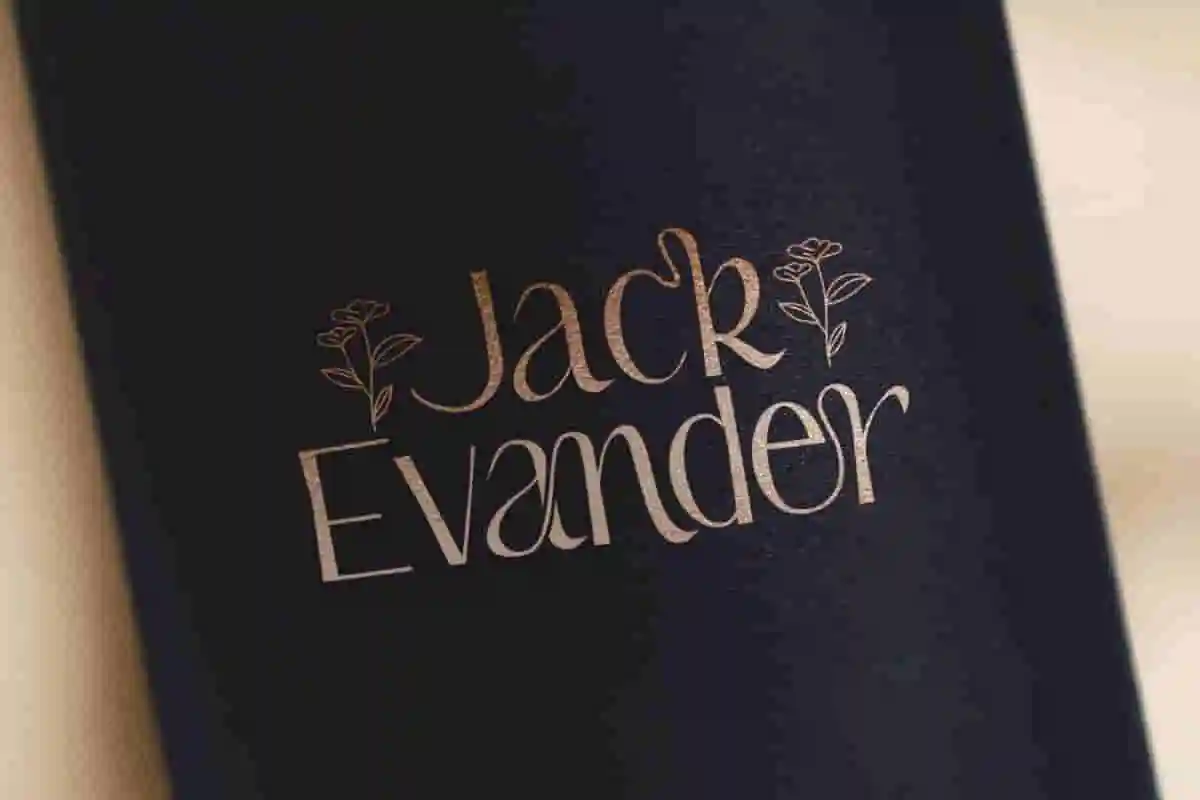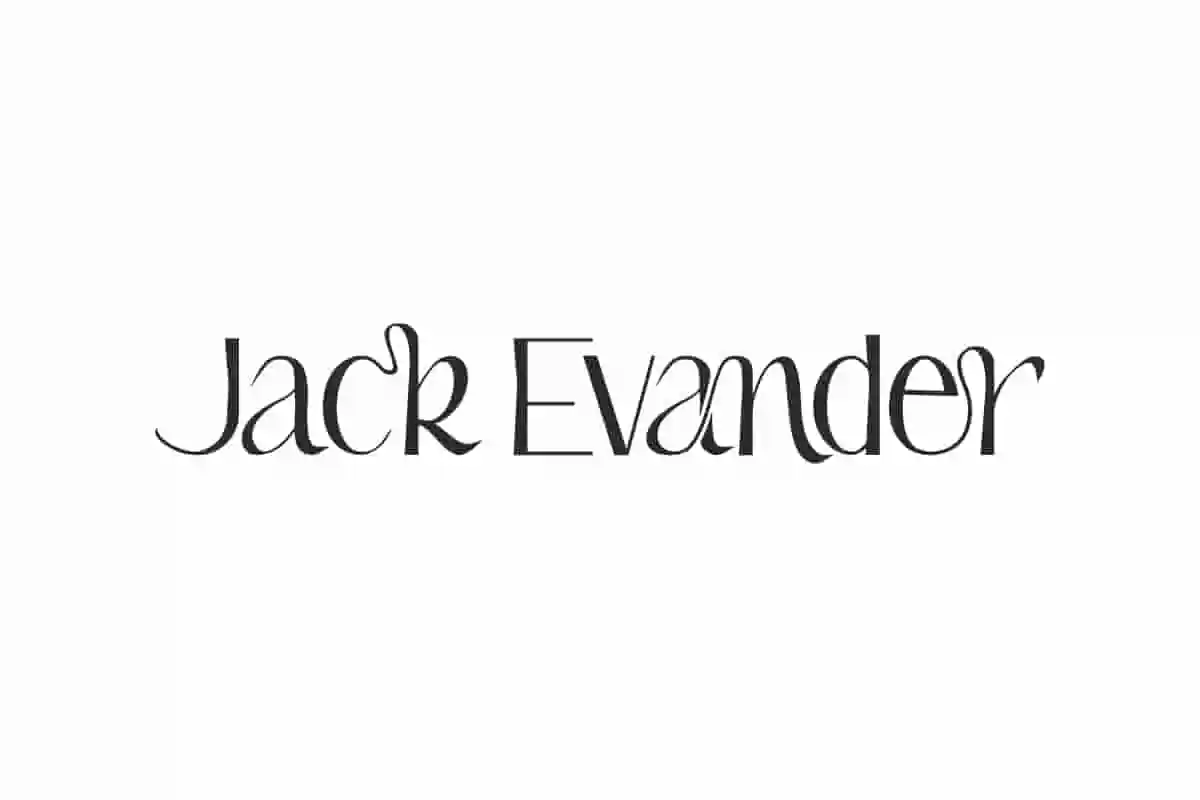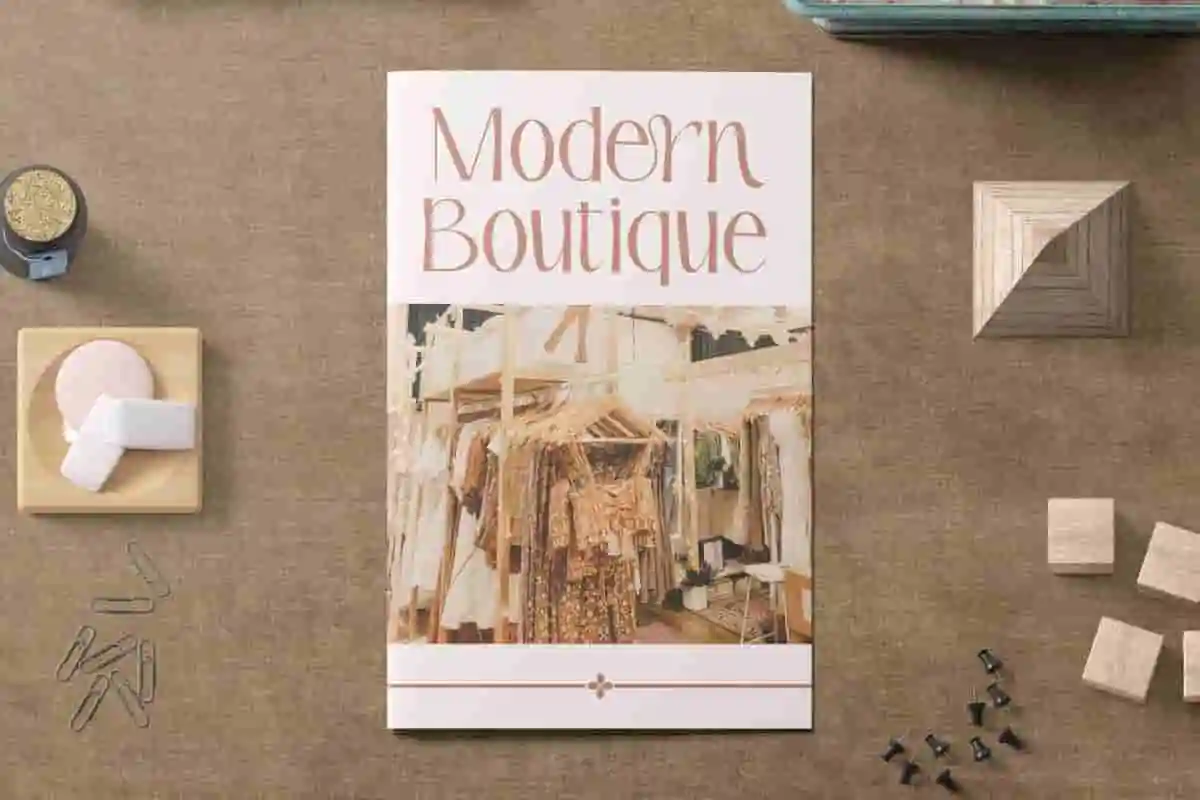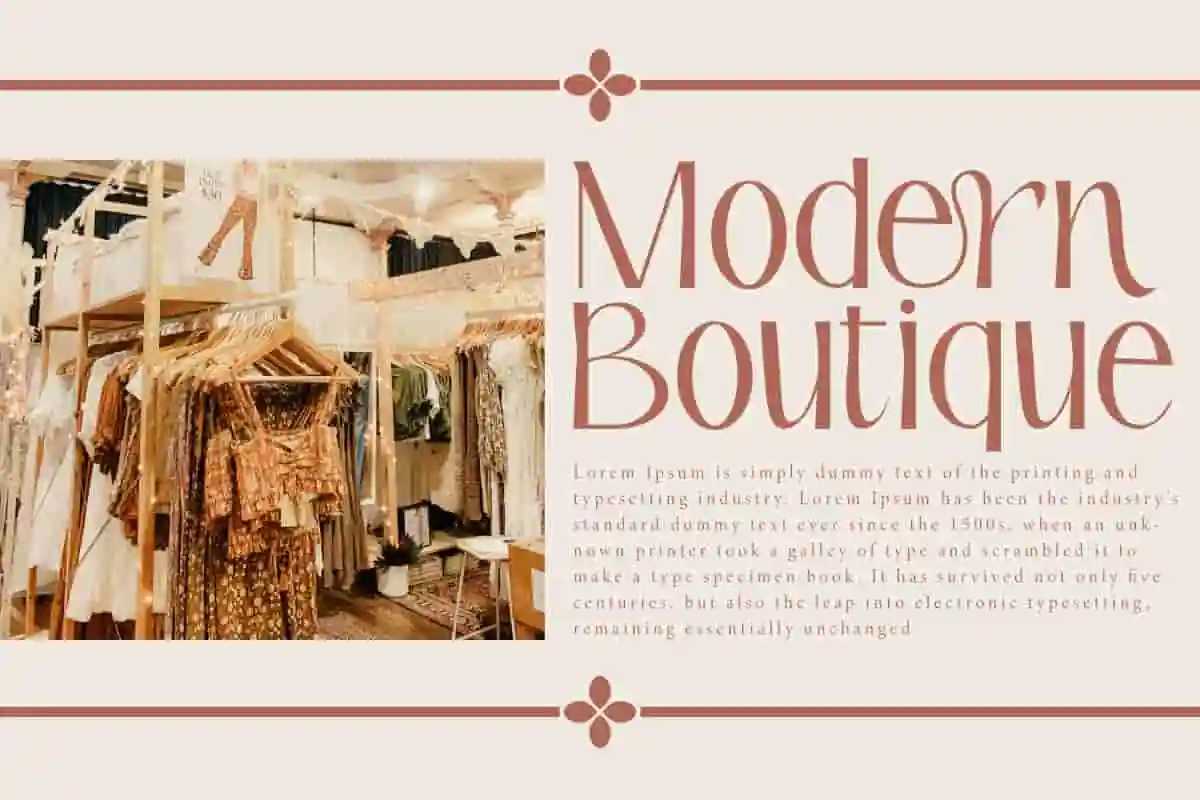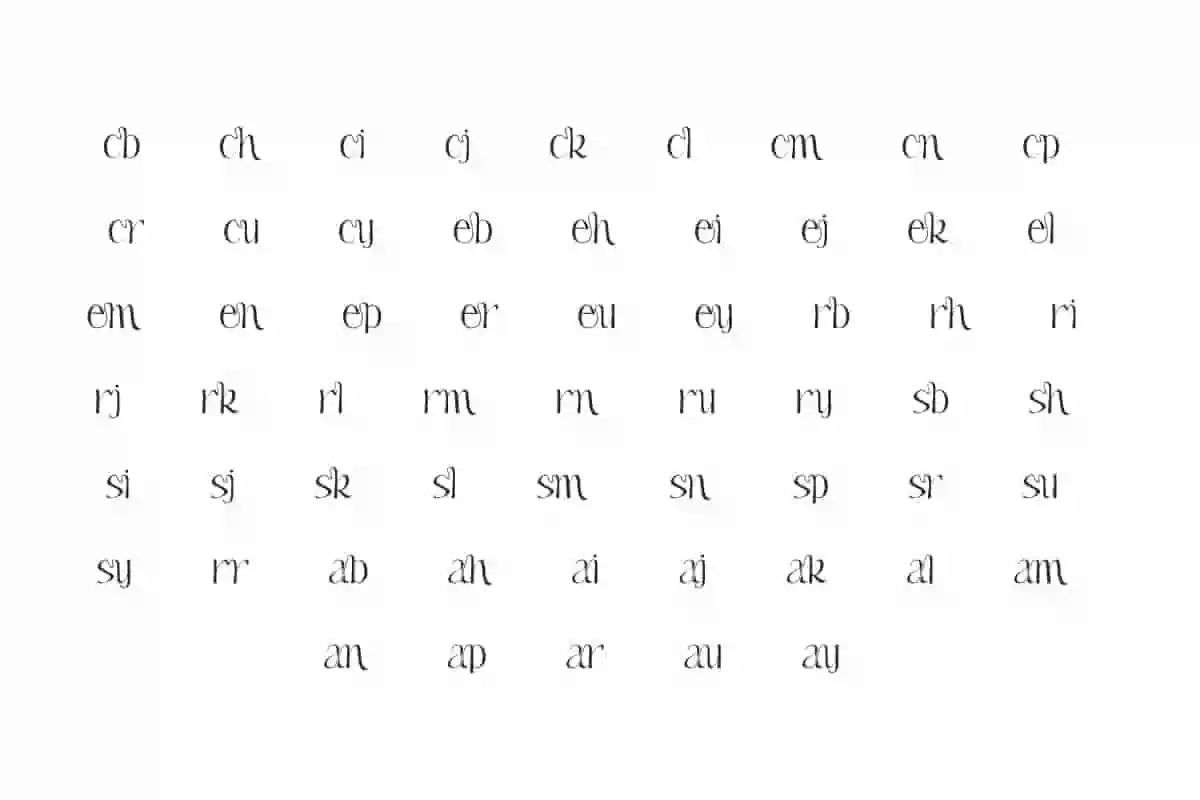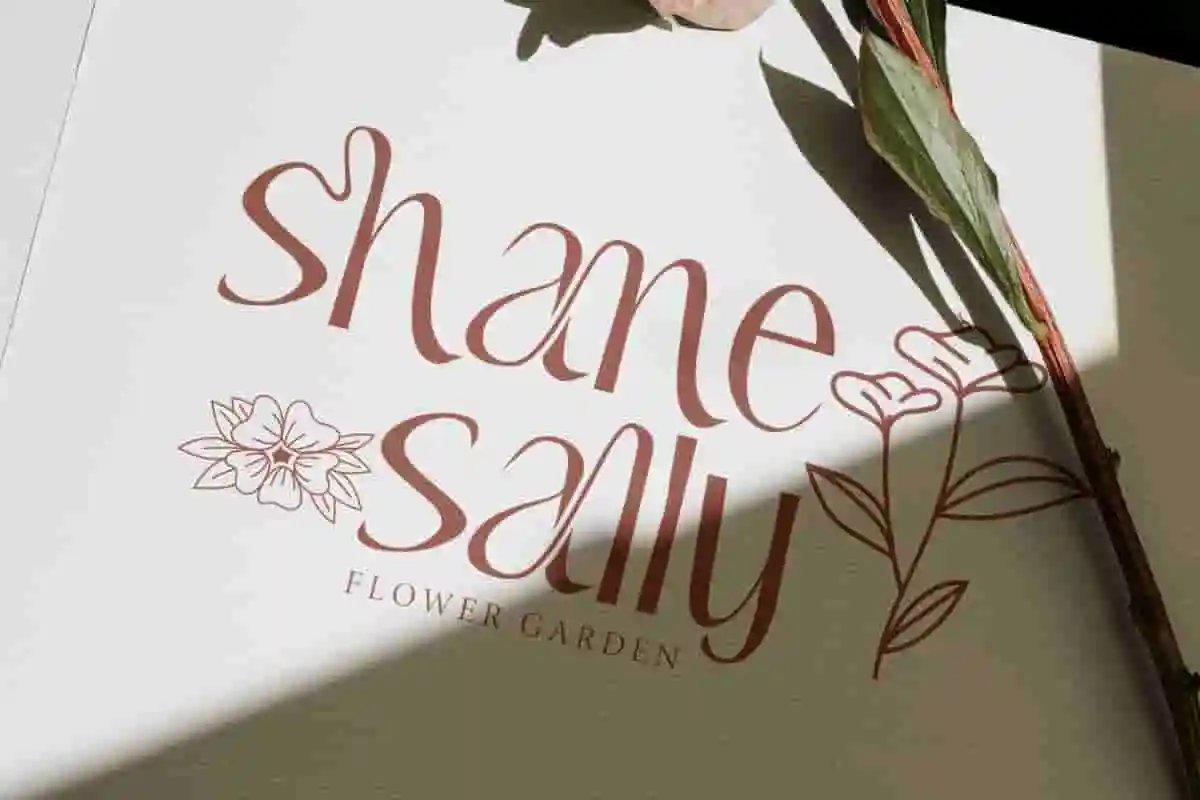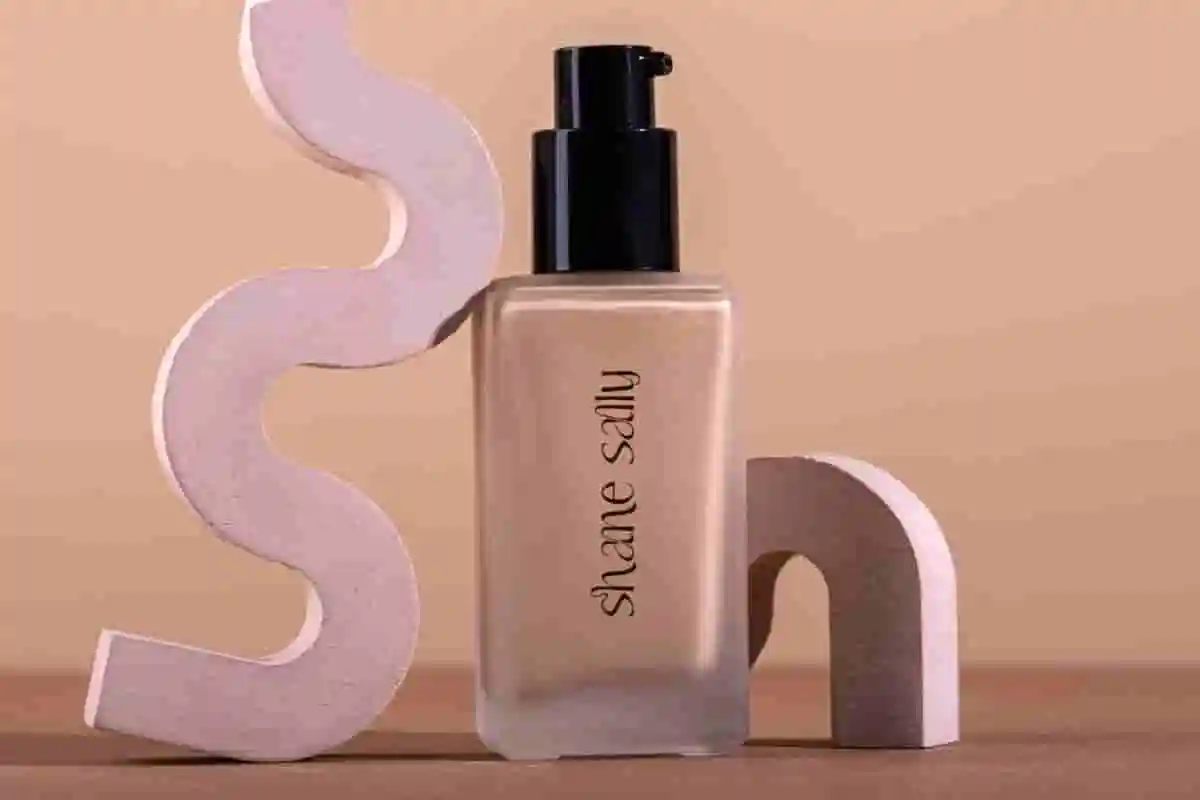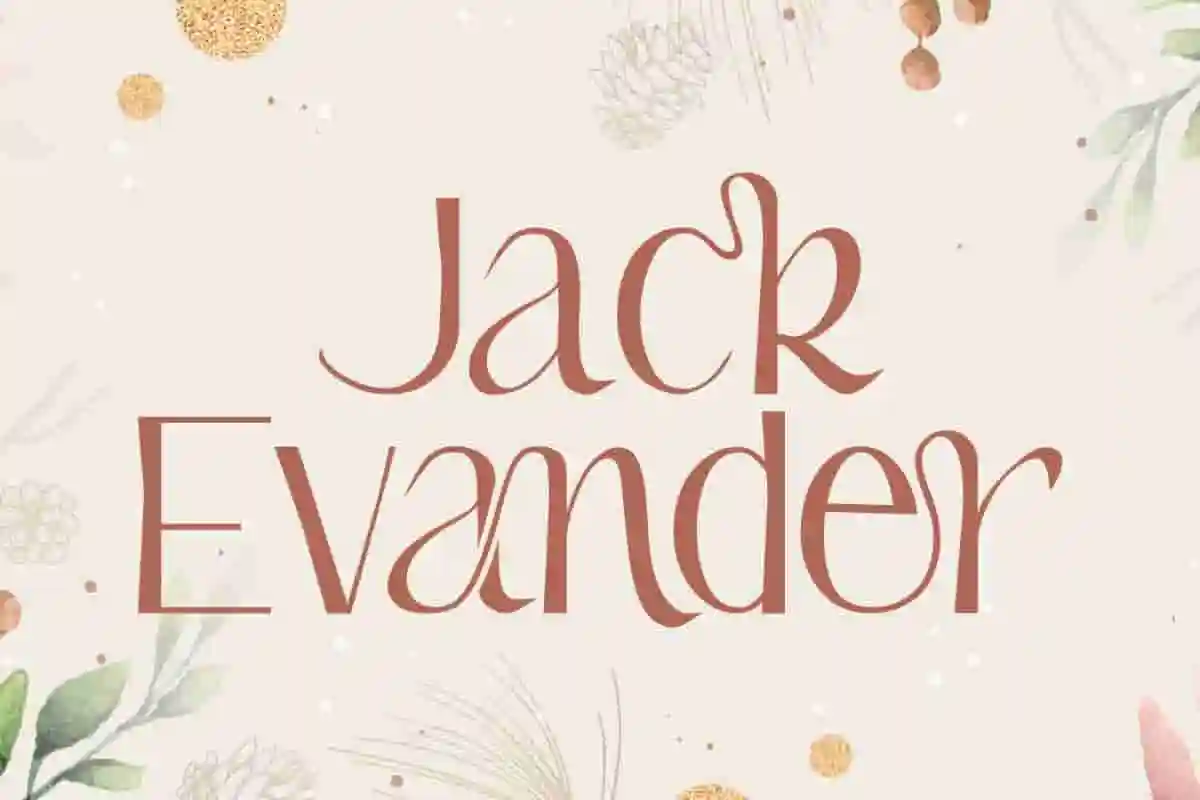
Jack Evander Font is a contemporary and cute sophisticated sans serif display font with a visual elegance that is simple yet classy.
Jack Evander Font is a cute sophisticated sans serif display font with a visual elegance that is simple yet classy. Specially designed for elegant themed projects with many ligatures in it that enhance the beauty of the font, it is perfect for creating modern and clean lifestyle designs such as blogs, covers, headings, labels, logos, magazines, stationery, titles, watermarks, websites, and more.
Jack Evander Font contains a complete set of basic characters Uppercase and Lowercase Letters, Numbers, Symbols, Punctuation, and Ligatures. This font combines modern style with a classic touch. The curves and balanced proportions of the letters make the font attractive. Uniquely, this font combines beauty, strength and clarity into one. Suitable for clothing brand, cosmetic, florist and more that require strong visual appeal.